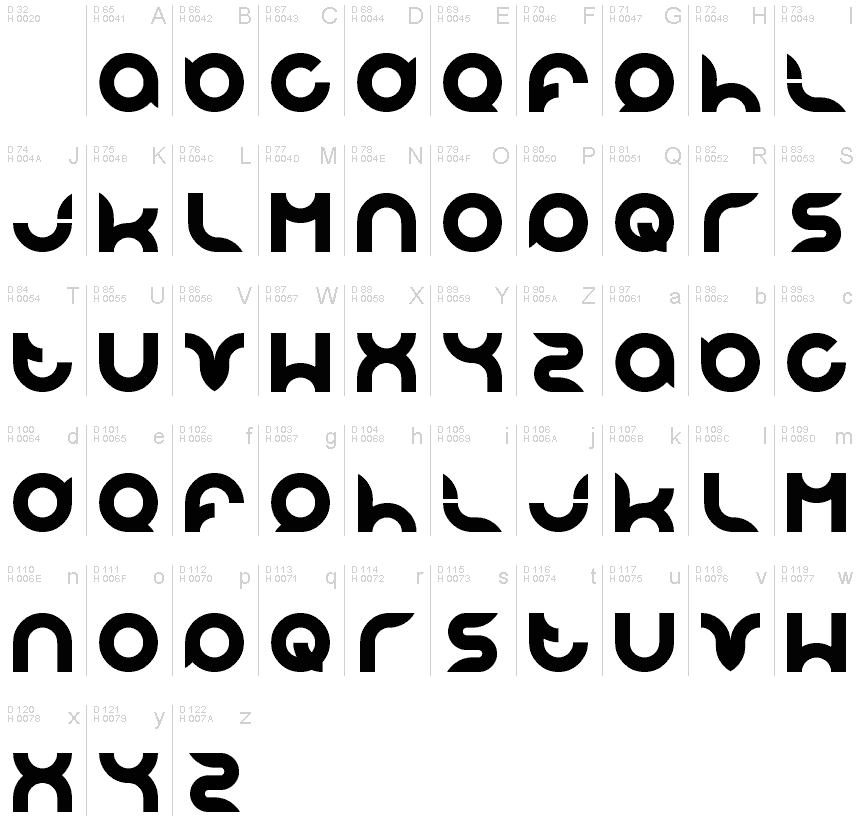
pandaman
Pandaman is a bold, techno-inspired display font that commands attention. Its striking geometric letterforms and heavy weight exude a sense of power and modernity. The sharp, angular lines and seamless curves create a visually striking balance, evoking a futuristic aesthetic that would thrive in digital interfaces, branding, and headline applications.
Pandaman's versatility makes it a captivating choice for projects requiring a strong, impactful typographic presence - from tech startups to sci-fi movie posters. Its distinct personality adds a dynamic, eye-catching flair to any design.